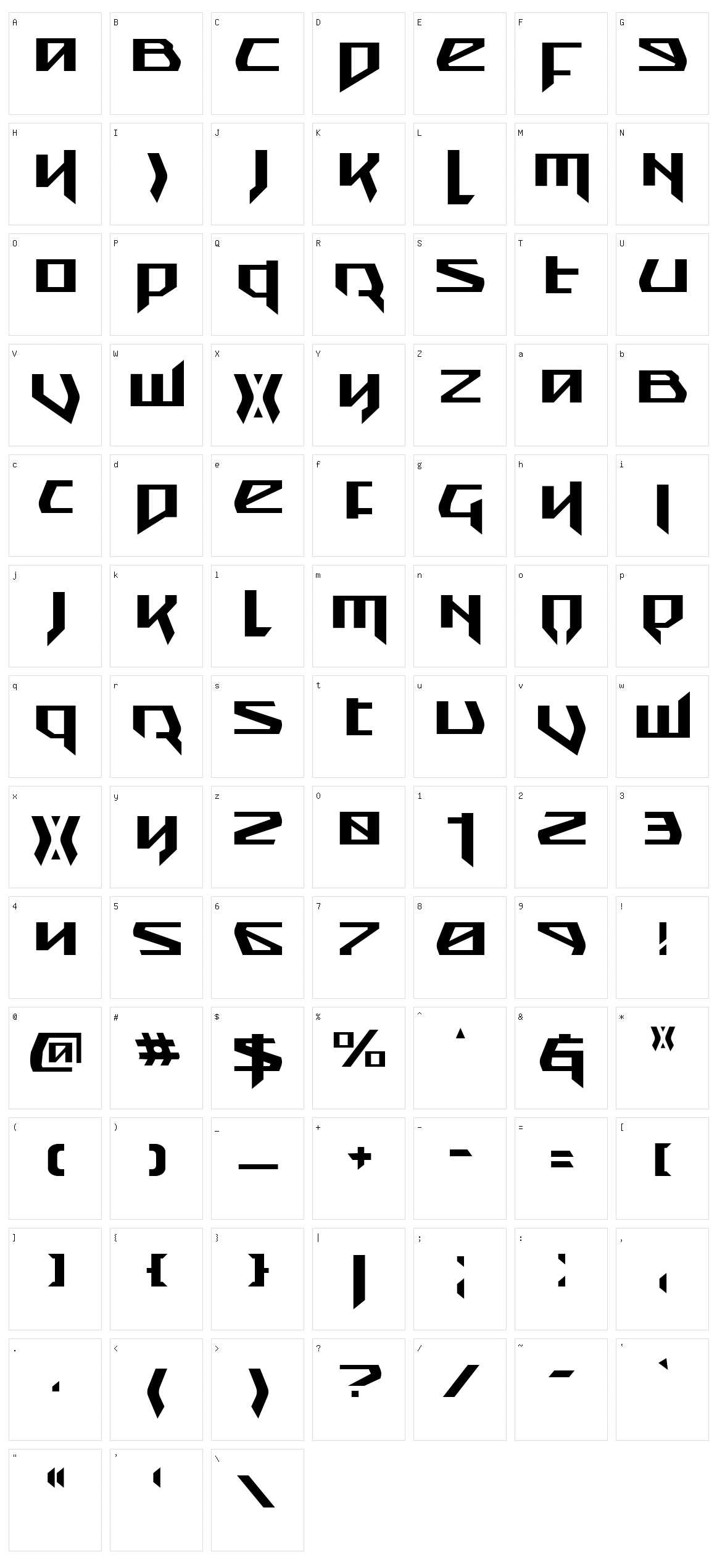
Snubfighter
This font is derived from Erikstormtrooper's "Metal Rebel" font, which can be found at http://www.erikstormtrooper.com/. Erik created "Metal Rebel" based on an obscure inscription from a Y-Wing pilot's helmet in "Return of the Jedi." This derivative modified the font to make it readable as a Latin/English typeface.
This font comes with the following 17 versions: Regular, Italic, Condensed, Condensed Italic, Expanded, Expanded Italic, Bold, Bold Italic, 3D, 3D Italic, Academy, Academy Italic, Phaser, Phaser Italic, Outline, Outline Italic and Leftalic.